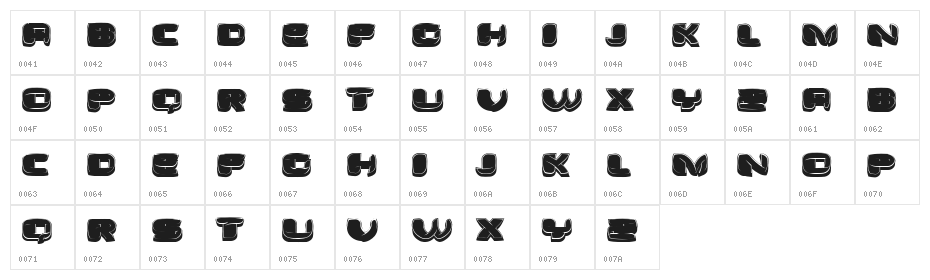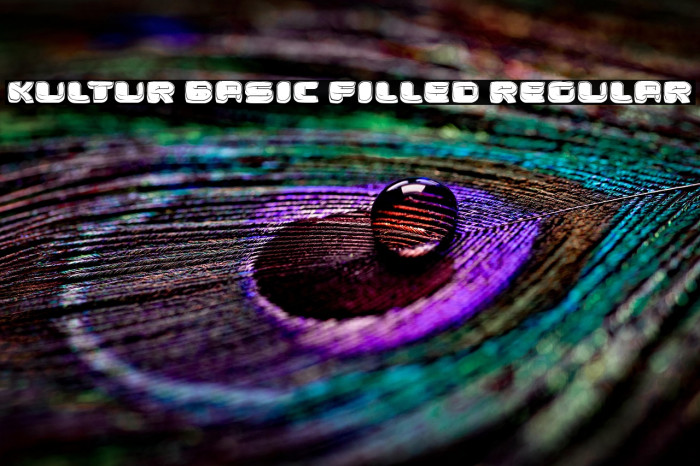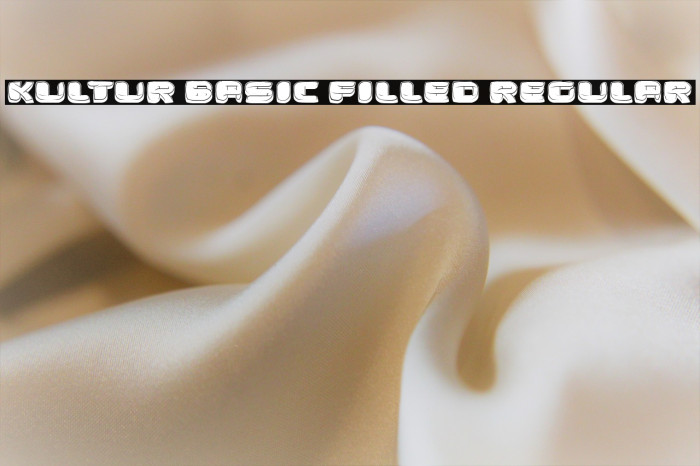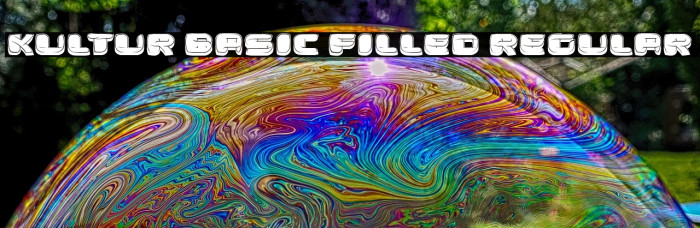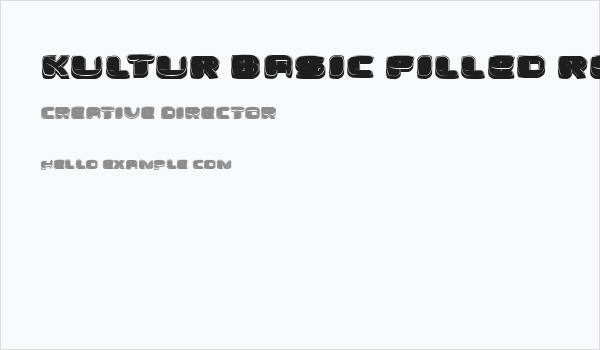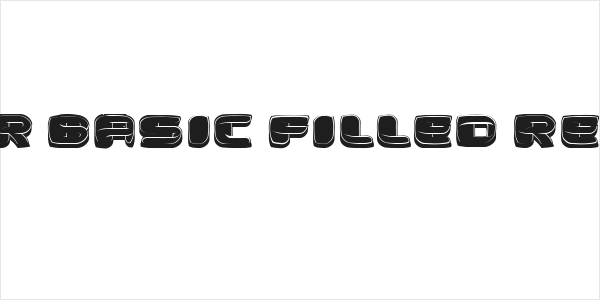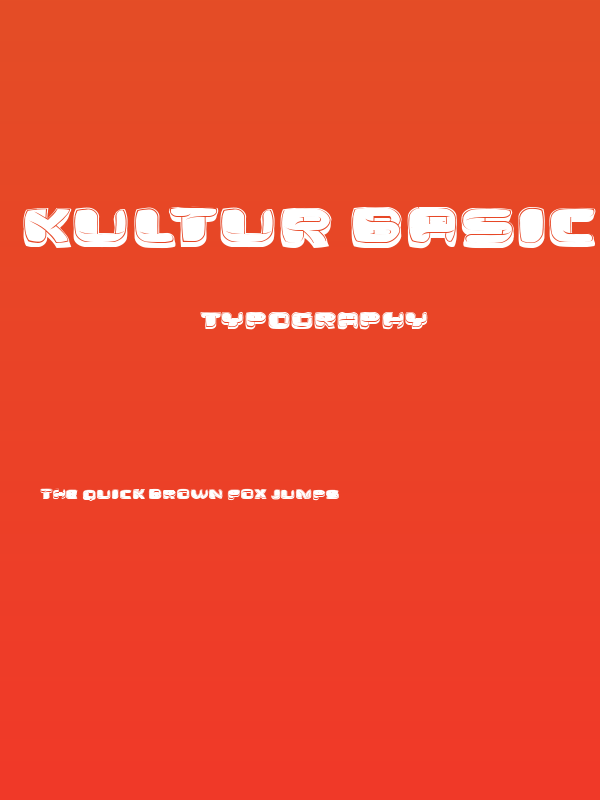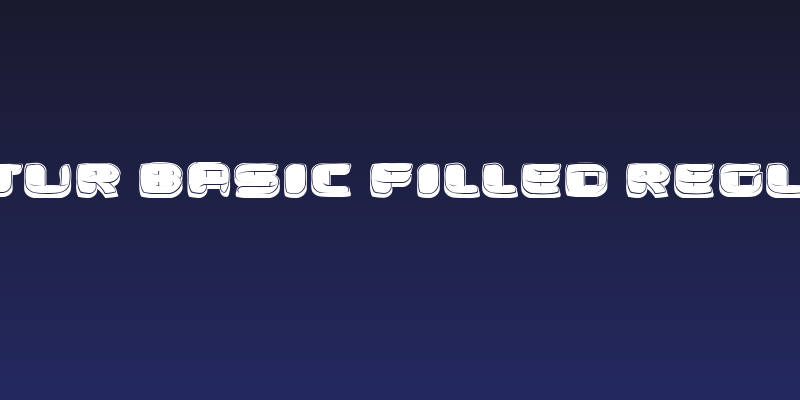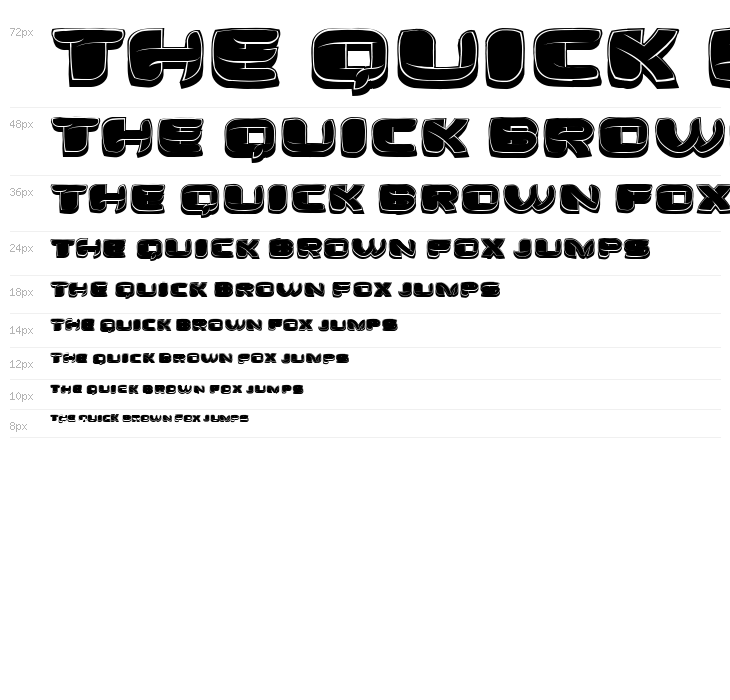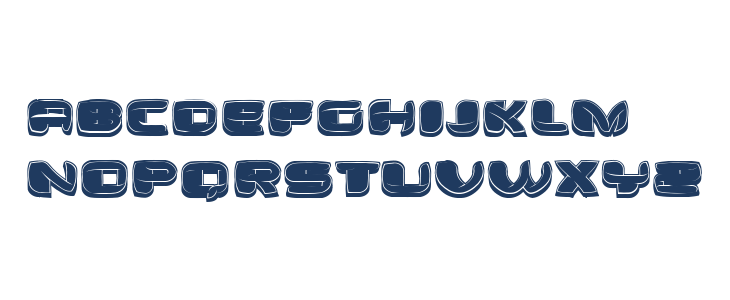
Kultur Basic Filled Regular Font
Kultur Basic Filled Regular Description
This font features a bold, filled design with a modern and futuristic aesthetic. The characters are rounded with a distinct three-dimensional effect, giving them a unique, eye-catching appearance. The boldness of the letters is complemented by a consistent thickness throughout, creating a strong visual impact. The style is reminiscent of digital or sci-fi themes, making it ideal for projects that require a contemporary and dynamic look. The characters are evenly spaced, ensuring readability while maintaining a compact and cohesive appearance.
| Proposed Projects | Ideal for digital media, gaming titles, sci-fi posters, and modern branding. |